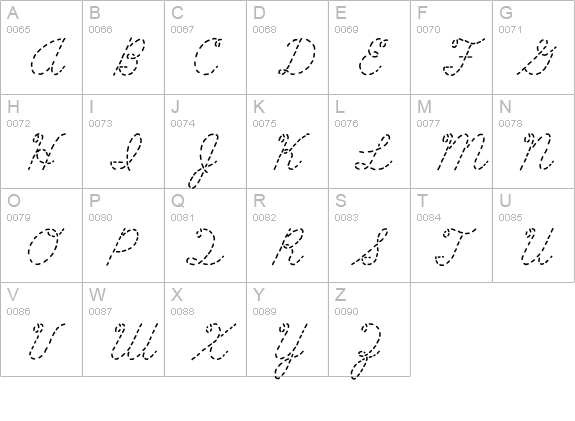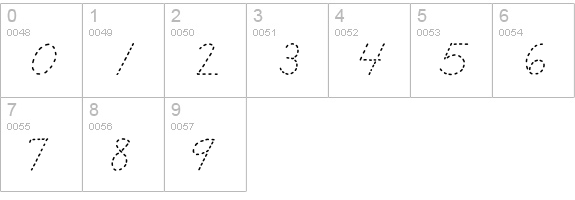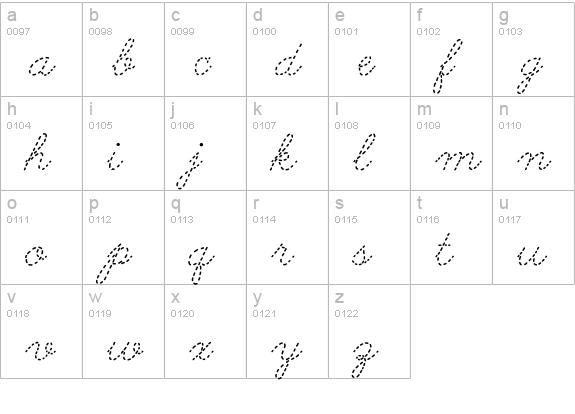
AbcCursiveDotted Font Details
AbcCursiveDotted font is a beautiful and elegant cursive font that is perfect for adding a touch of sophistication to your projects. With its dotted style, this font exudes a sense of charm and playfulness. Whether you're designing invitations, greeting cards, or any other creative project, AbcCursiveDotted is sure to make your text stand out. The best part? AbcCursiveDotted font is completely free to download at FontsMarket.com. Simply head over to the website, grab your copy, and start using this lovely font in your designs today. Don't miss out on the opportunity to enhance your projects with the timeless appeal of AbcCursiveDotted font.